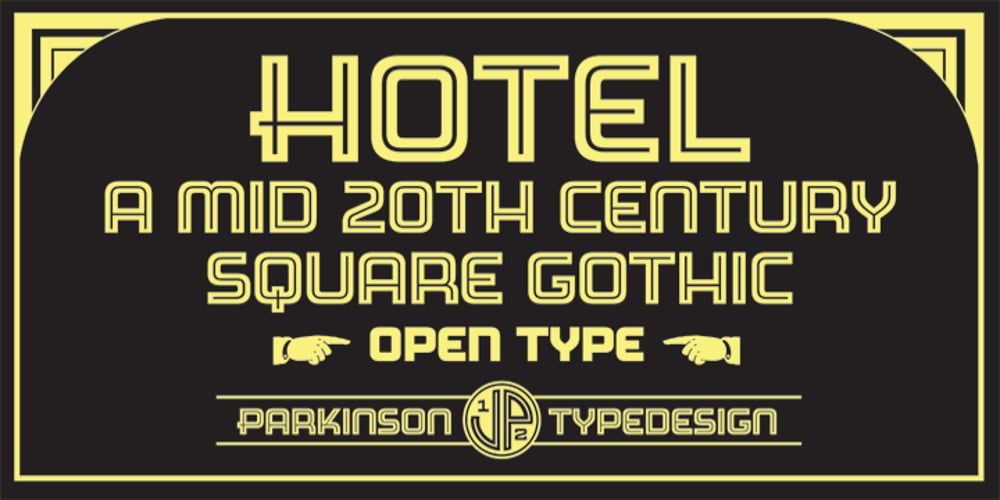
Hotel Font Family was designed by Jim Parkinson and published by Parkinson. Hotel contains 2 styles and family package options. An inline gothic display font based in mid-twentieth century showcard and signpainting styles. All caps with some alternates in lower case keyboard positions.